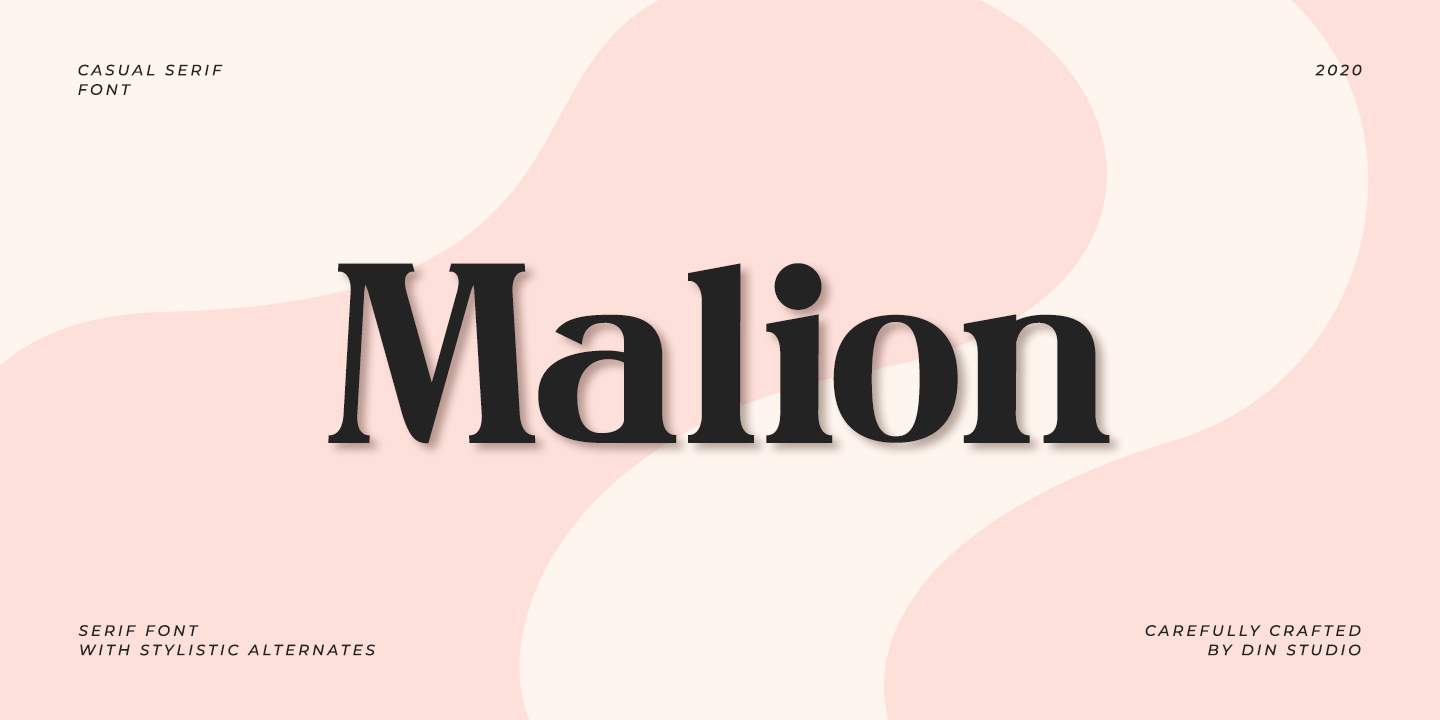
Malion Font is perfect for various applications including contemporary corporate branding, professional service logos, modern magazine layouts, sophisticated website headers, executive business cards, minimalist packaging design, architectural firm identities, legal document formatting, premium product catalogs, and refined marketing materials.
What makes Malion Font so exciting is its exceptional balance between professional authority and contemporary accessibility. This distinguished typeface features refined letterforms with subtle geometric influences and clean proportions that create an atmosphere of trustworthiness and modern sophistication. The font's versatile character and polished aesthetic make it ideal for brands that want to convey competence, reliability, and contemporary professionalism to audiences who value quality, expertise, and refined business communications.
Malion Font family includes multiple weights and styles: Thin, Light, Regular, Medium, Bold, Black, Condensed, Extended, Display, and professionally crafted Italic variants. Each family member maintains the font's signature sophistication while offering different levels of visual hierarchy and stylistic flexibility for diverse professional and corporate applications.
The Malion Font Free Download offers designers access to a professional typeface that excels in corporate and business markets. Whether you're creating executive brand identities, designing professional marketing materials, or developing sophisticated digital platforms, this font delivers the refined aesthetic needed to establish credibility with business-minded audiences. Its contemporary styling and professional essence make it particularly effective for consulting firms, financial services, and corporate enterprises.
Typography specialists will appreciate the meticulous craftsmanship and balanced proportions in Malion Font's construction. The font features precisely engineered letterforms with optimized kerning, clean geometric influences, and carefully calibrated spacing that ensure exceptional readability while maintaining its professional character. From detailed reports to commanding presentation headers, this typeface maintains its authority and sophistication across all business contexts.
For corporate web designers, Malion Font provides outstanding performance in professional digital environments and business applications. The font's technical specifications are optimized for various screen resolutions while preserving the clean, authoritative edges that define its professional character. Its versatility makes it suitable for both comprehensive business documentation and executive-level presentations.
Creative professionals working in consulting, finance, law, and corporate services will find Malion Font to be an indispensable tool for projects requiring authoritative visual communication. The font's ability to convey expertise, trustworthiness, and professional excellence makes it invaluable for brands targeting business decision-makers and professional demographics.
Design agencies specializing in corporate and professional brands appreciate Malion Font's versatility in creating memorable business identities that command respect in competitive markets.